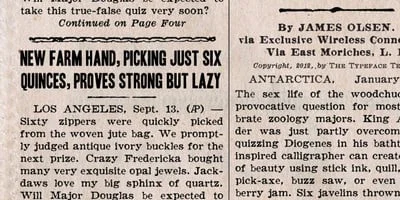
Fishwrapper Font
Fishwrapper Font is perfect for vintage newspaper projects, retro journalism designs, old-fashioned fish markets, nostalgic diner menus, classic seafood restaurants, authentic newsstand branding, traditional fishmonger shops, and maritime heritage publications. This weathered typeface brings vintage newspaper charm and coastal authenticity to any design project celebrating the humble traditions of local journalism and seaside commerce.
What makes Fishwrapper Font exciting is its authentic capture of worn newspaper aesthetics combined with maritime practicality that perfectly embodies the honest simplicity and working-class charm of traditional fishwrapping papers and local coastal journalism. The weathered letterforms feature newsprint character and seaside durability that create an unmistakably authentic appearance. Each character tells stories of daily life, making it ideal for brands that celebrate honest work, local traditions, and the unpretentious beauty of everyday coastal community life.
The Fishwrapper Font family typically includes regular weight with complete uppercase and lowercase letters, numbers, punctuation marks, and maritime symbols. Many versions feature additional weathered variations, newsprint effects, and coastal decorative elements that enhance the authentic aesthetic and provide creative flexibility for vintage journalism and maritime design applications.
Whether you're developing coastal heritage brands or creating vintage journalism materials, Fishwrapper Font offers unmatched authenticity and working-class charm. This honest typography choice transforms ordinary text into genuine communications that resonate with audiences appreciating local traditions and unpretentious authenticity. The font's weathered construction ensures exceptional character across heritage applications while maintaining its distinctive newspaper character that makes every design project feel like a piece of local history where honest journalism meets daily life in perfect coastal community harmony.